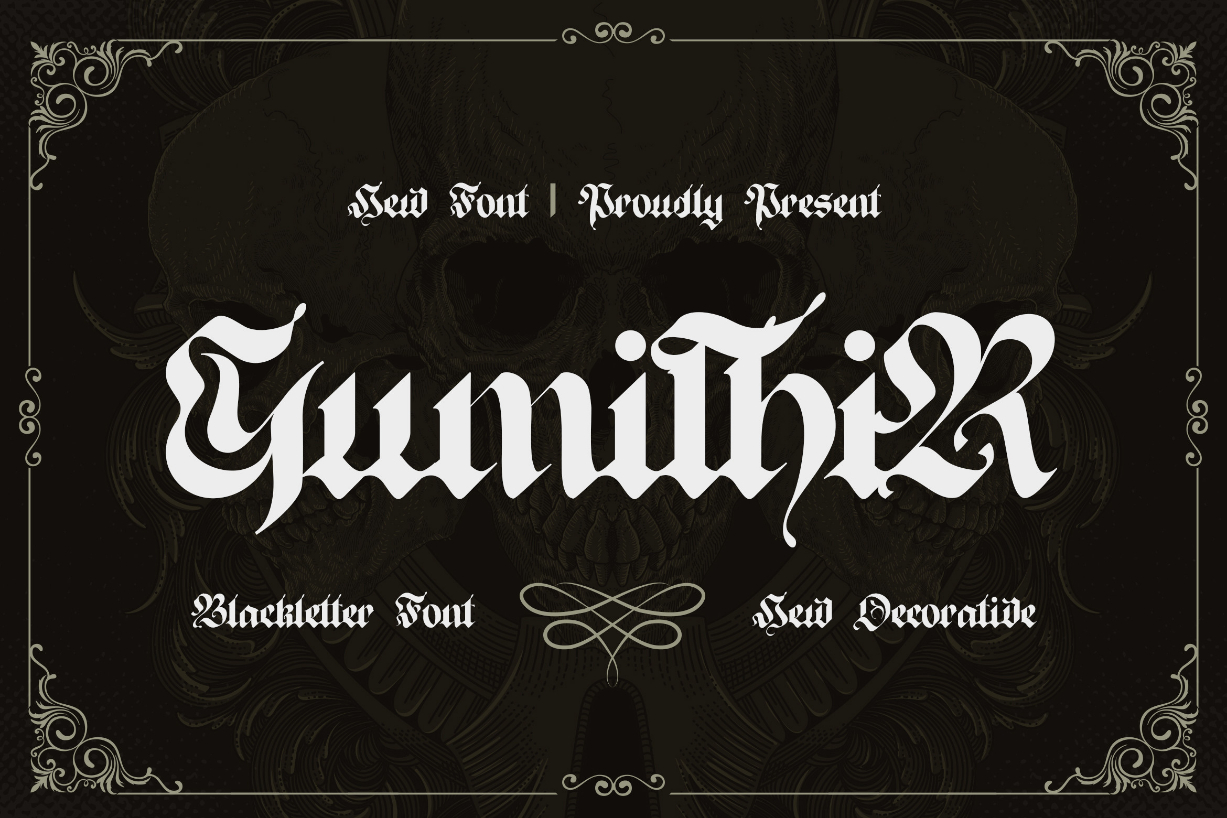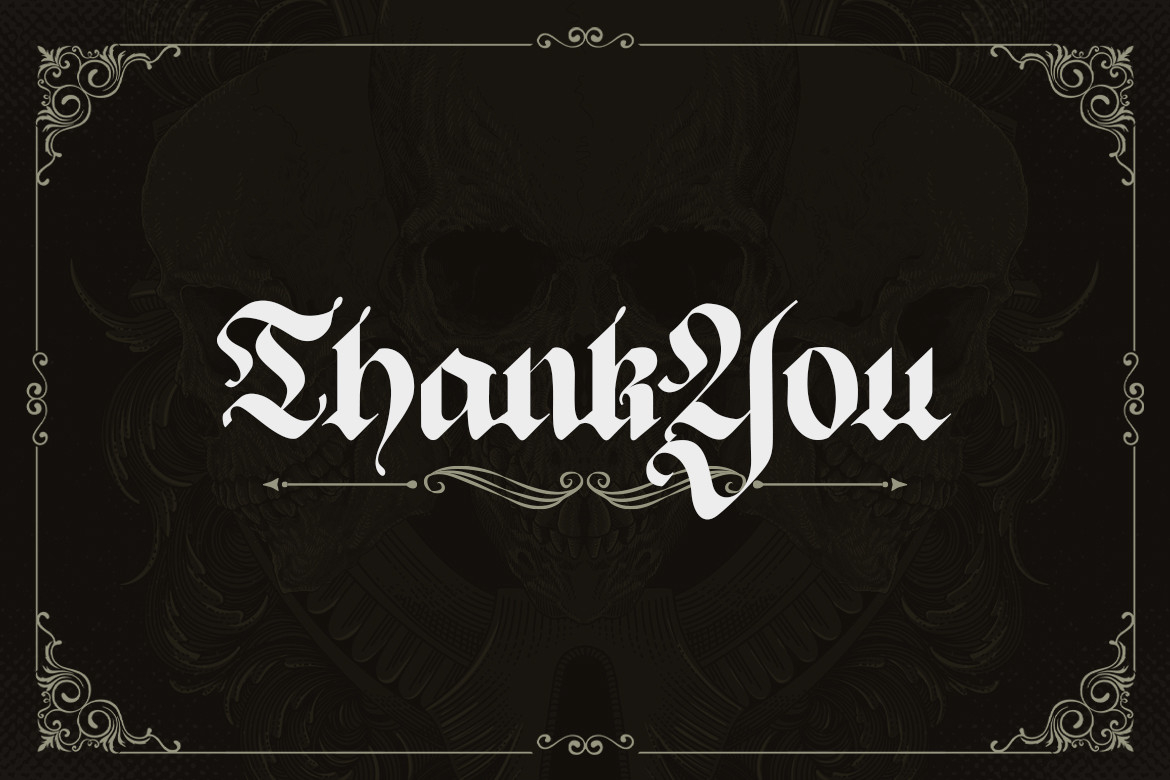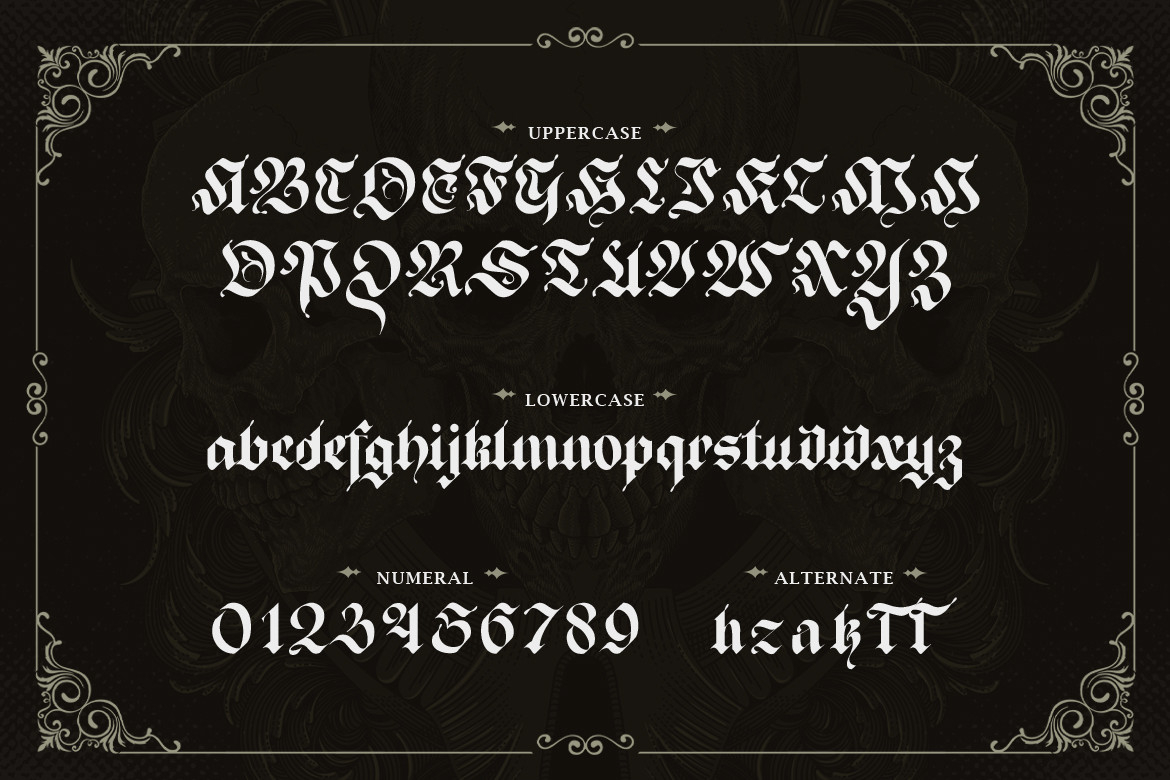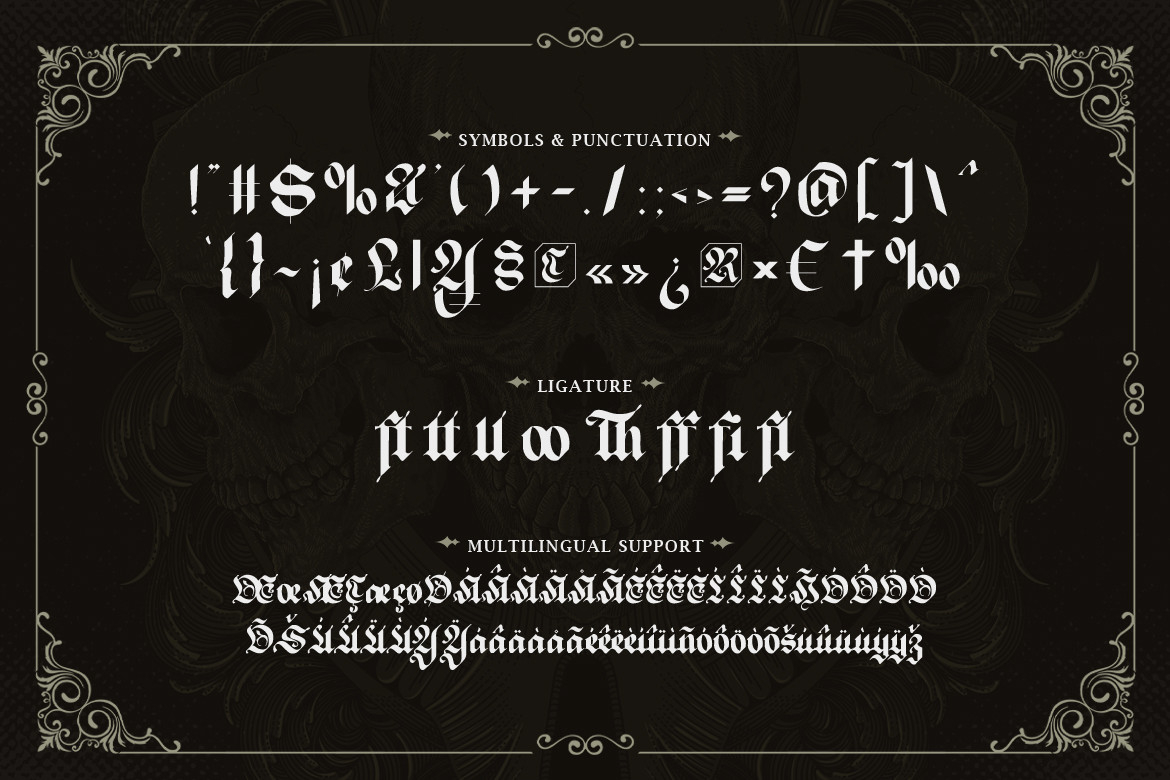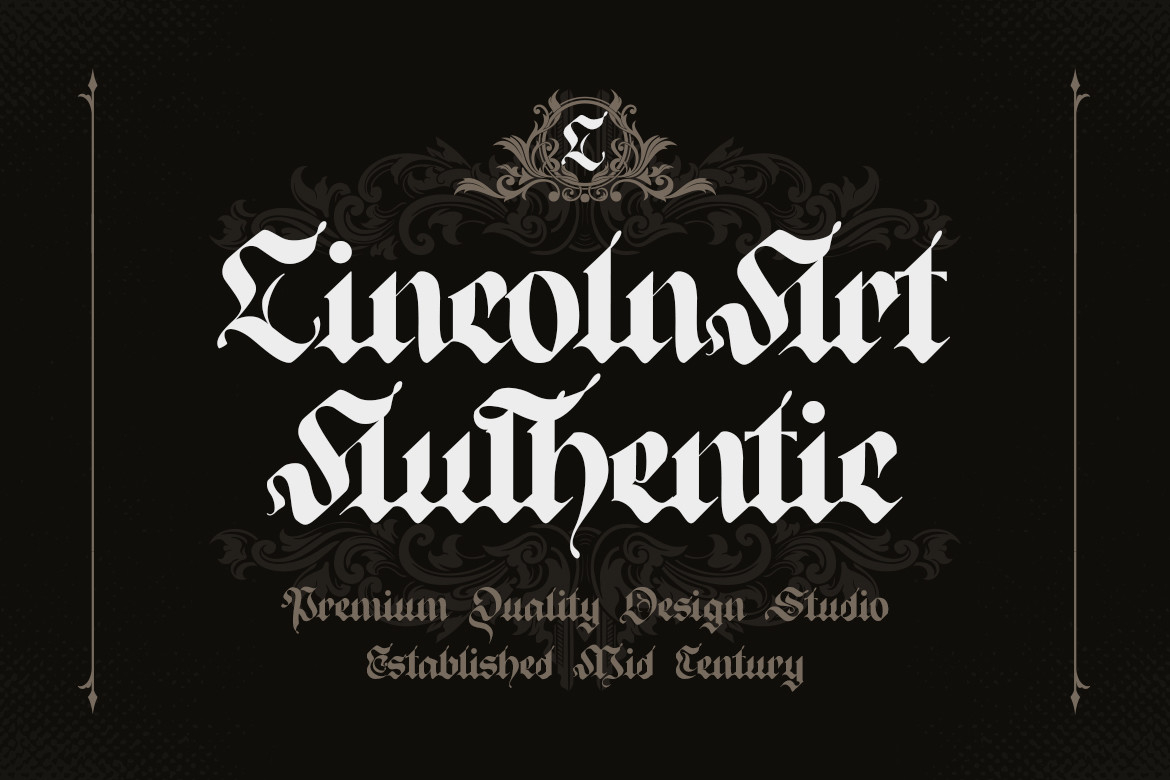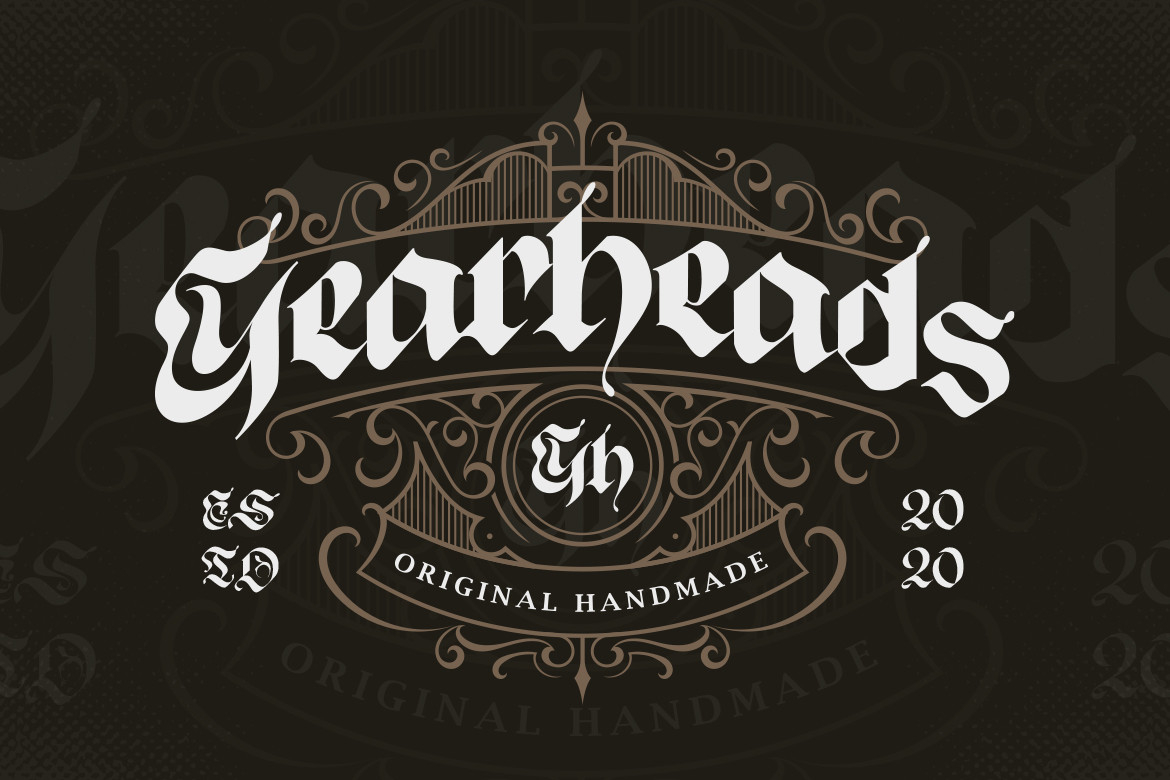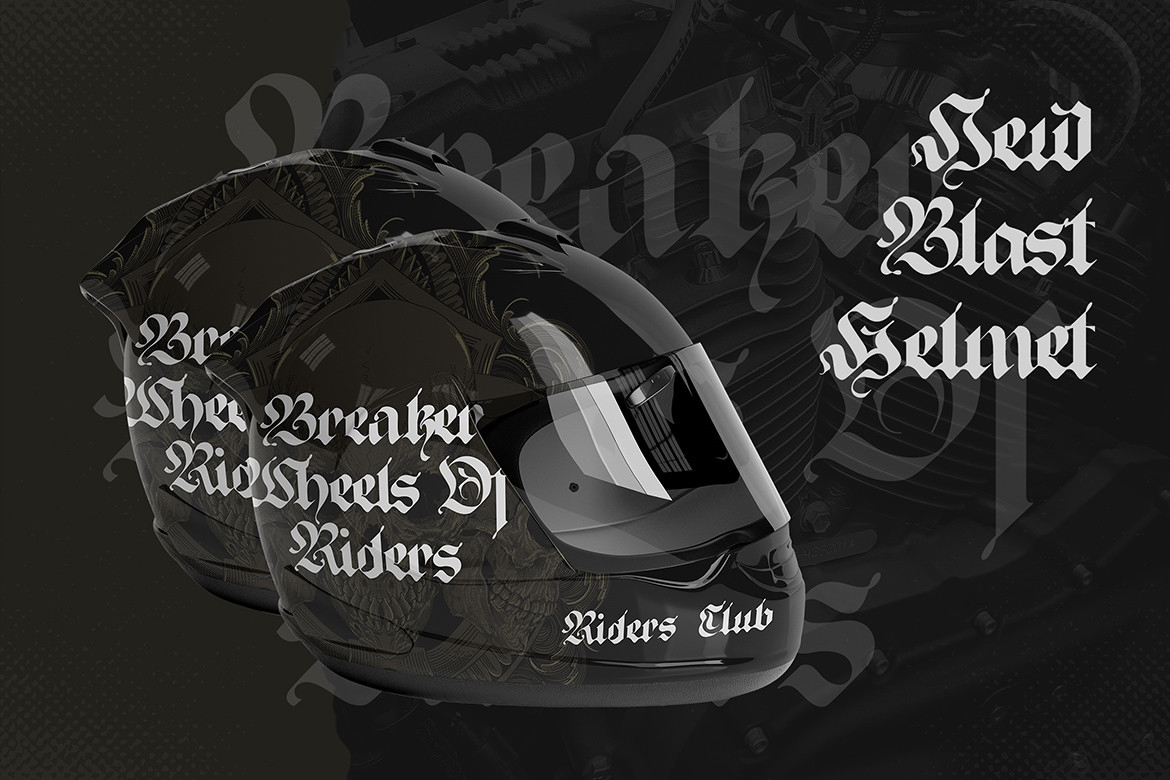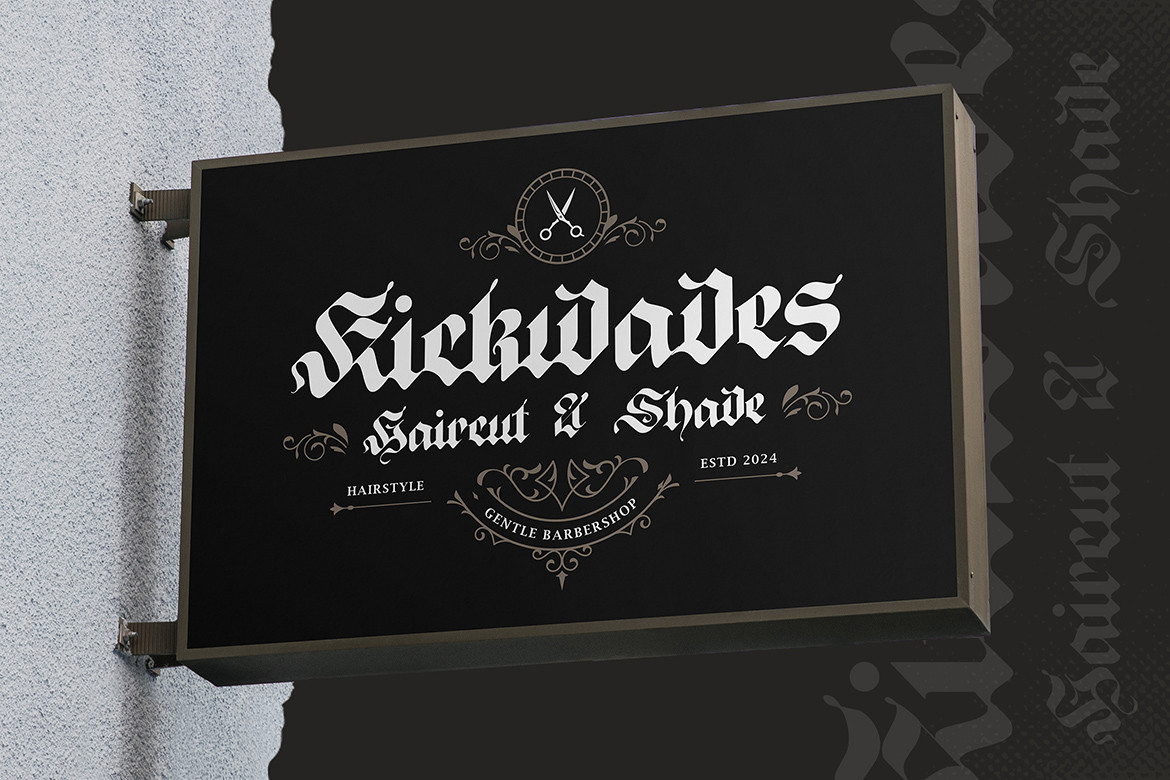
Gumithir Font
About Gumithir Font
Looking for a font that’s both bold and traditional? Look no further than Gumithir – a striking and powerful blackletter font that’s perfect for all your design needs.
With its distinctive and ornate letterforms, “Gumithir” is a font that’s sure to make a statement. Each letter is designed to be bold and dramatic, making it perfect for headlines, titles, and other text that needs to stand out.
Whether you’re creating logos, branding, or other design materials, Gumithir is the perfect font for the job. It’s also great for use in packaging design, book covers, and other creative projects where a touch of tradition is needed.